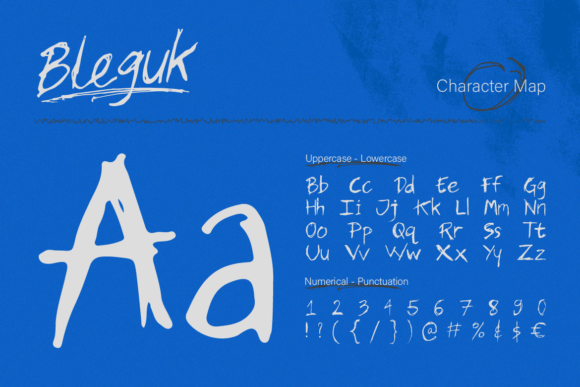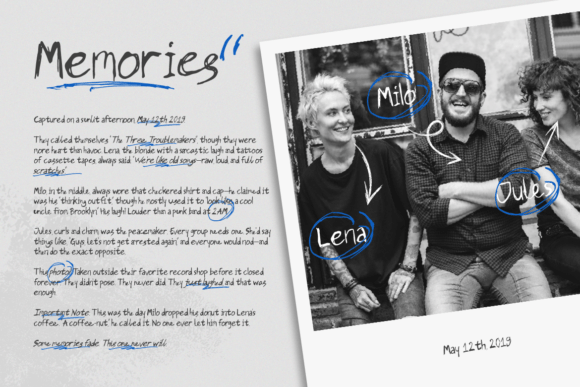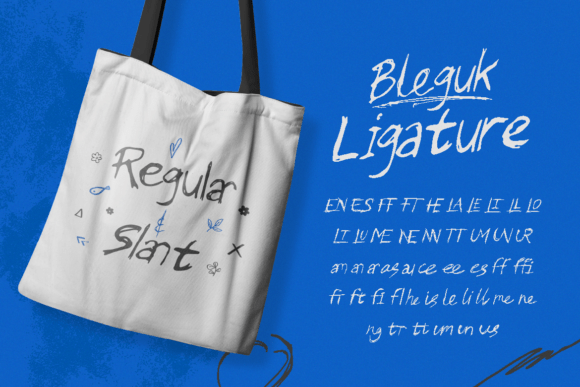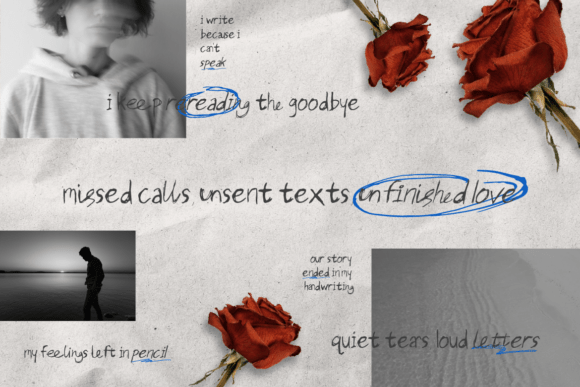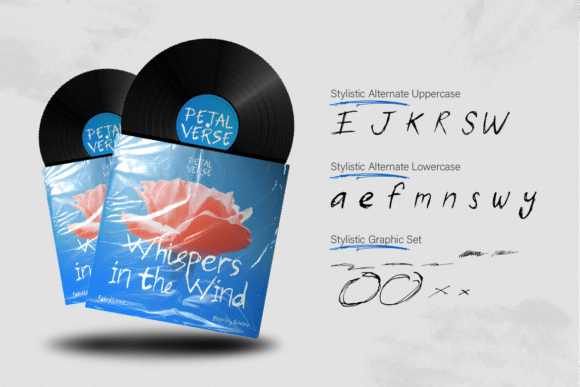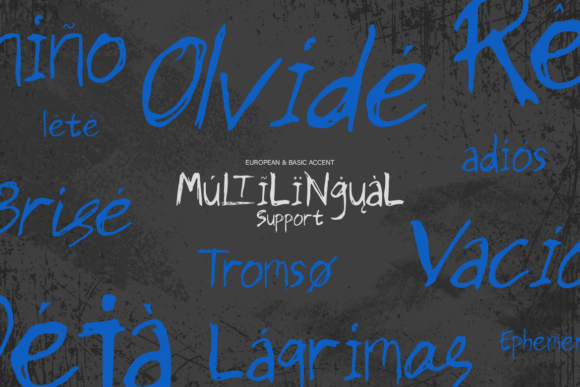
Meet Bleguk Font: The Artsy, Chaotic Handwritten Font with a Raw and Sketchy Vibe
Are you tired of using the same old fonts in your designs? Look no further than Bleguk, a unique and expressive handwritten font that’s sure to add a touch of personality to any project. With its raw and sketchy vibe, Bleguk is perfect for designers and crafters who want to add a bit of chaos and creativity to their work.
The Personality of Bleguk
Bleguk is more than just a font – it’s a statement. It’s loud, expressive, and full of character, like scribbles on a journal or messy sketches on a creative wall full of stories. This font has a strong and unique personality that stands out in any design, making it perfect for projects that need a bit of attitude and flair.
The Characteristics of Bleguk
So, what makes Bleguk so special? Here are just a few of its key characteristics:
- Handwritten with a raw and sketchy vibe: Bleguk is a handwritten font that’s been crafted to look like it was scribbled on a piece of paper. It has a rough, organic feel that’s perfect for adding a touch of whimsy to your designs.
- Loud and expressive: Bleguk is a font that’s not afraid to make a statement. It’s bold, confident, and full of personality.
- Full of character: With its unique letterforms and irregular shapes, Bleguk is a font that’s full of character and charm.
Using Bleguk in Your Designs
So, how can you use Bleguk in your designs? Here are a few ideas to get you started:
- Headings and titles: Bleguk is perfect for use in headings and titles, where its bold and expressive personality can really shine.
- Signage and posters: Bleguk’s raw and sketchy vibe makes it perfect for use in signage and posters, where it can add a touch of edginess and creativity.
- Journaling and scrapbooking: Bleguk’s handwritten feel makes it perfect for use in journaling and scrapbooking, where it can add a personal and intimate touch.
Tips for Getting the Most Out of Bleguk
Here are a few tips for getting the most out of Bleguk:
- Experiment with different colors: Bleguk looks great in a variety of colors, so don’t be afraid to experiment and find the perfect hue for your design.
- Mix and match with other fonts: Bleguk can be paired with a variety of other fonts to create a unique and interesting look.
- Use it sparingly: Because of its bold and expressive personality, Bleguk is best used sparingly. Use it to add a touch of personality to your design, but don’t overdo it.
Bleguk is a unique and expressive handwritten font that’s perfect for designers and crafters who want to add a bit of chaos and creativity to their work. With its raw and sketchy vibe, loud and expressive personality, and full of character, Bleguk is sure to stand out in any design. So why not give it a try and see what kind of creative and artistic projects you can come up with?
Whether you’re a seasoned designer or a crafty DIY enthusiast, Bleguk is a font that’s sure to inspire and delight. So go ahead, get creative, and see what kind of amazing things you can make with Bleguk!